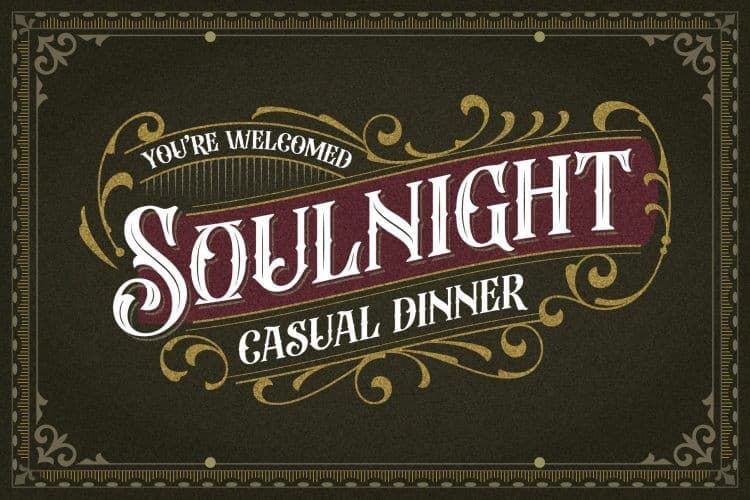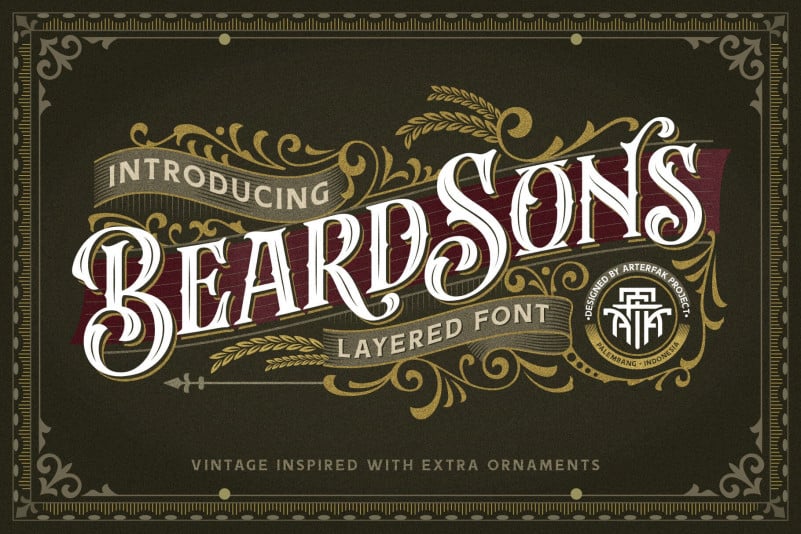
Beardsons Normal Blackletter Font
Beardsons Normal Blackletter Font is bold blackletter typeface created by Arterfak with the additional effect: Normal – Inline – Shadow, packed as the layered typeface. Collected from many references such as vintage signage, logo, badges, and old fashioned graphics. Beardsons is An all-caps typeface, carefully crafted with a high ornamental taste.
Beardsons is perfect for many display purposes. You can use this typeface for poster, label, logo, signboard, t-shirt, book cover, decoration, merchandise, and more! Multilingual support with extra ornaments included!